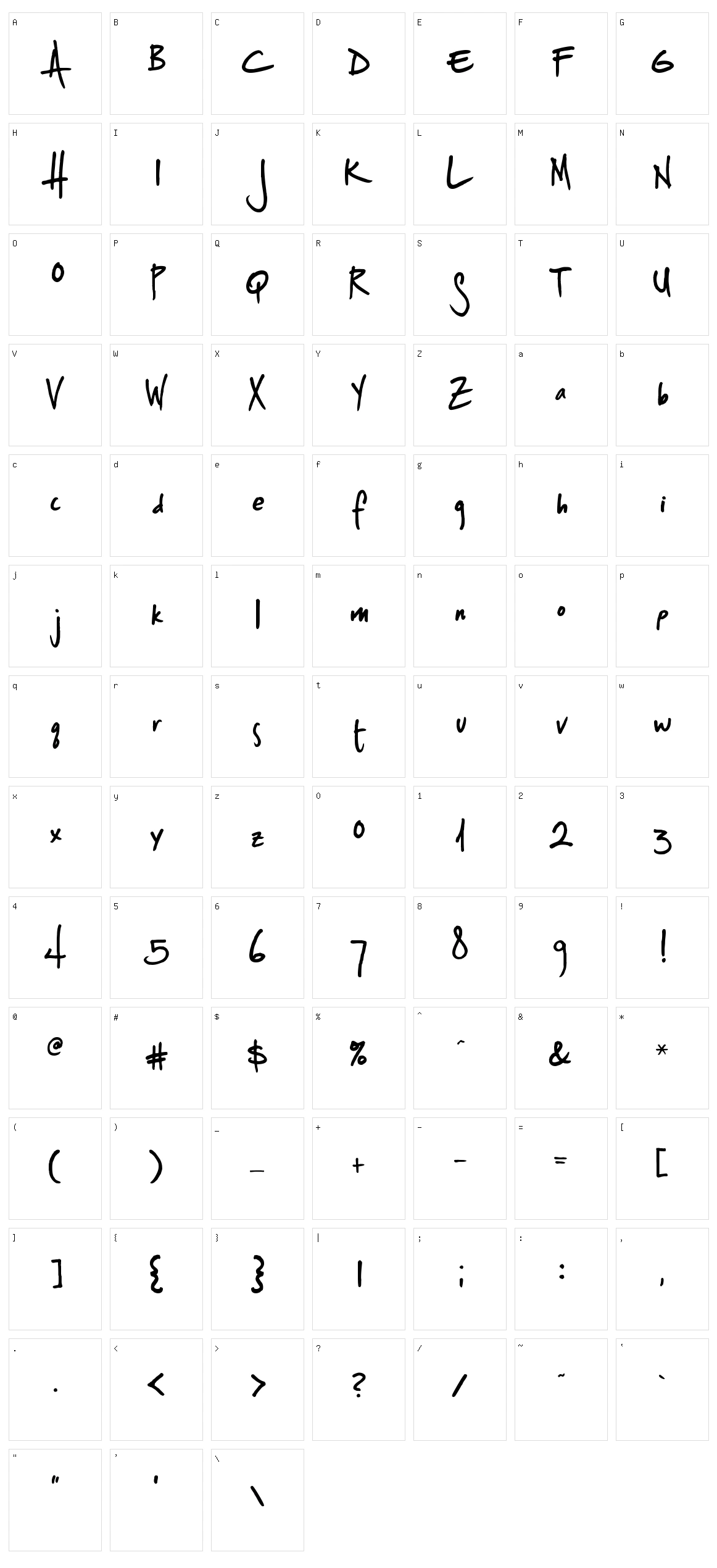
ABOUT SPLURGE. . .
Splurge was created by moi, l'Abcdarienne, in 1994. It contains a full set of accents and symbols (except scientific).
It is based directly on my casual writing in Sharpie pen. It is a rough font, not fine-tuned for text; this is intended to retain a sense of handwriting. I recommend using Splurge at larger point sizes for short lines of text Ñ and do avoid setting with it in all capital letters (blech).
I later tuned it up a little and added a bold weight but... it was my first font and only an experiment, so don't expect much.
The name Splurge was randomly generated by my finger falling into the pages of a dictionary.